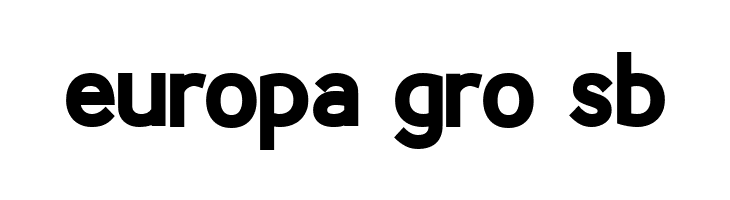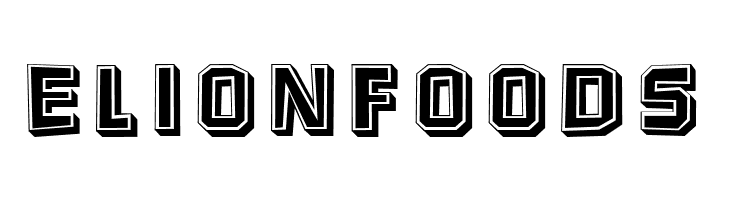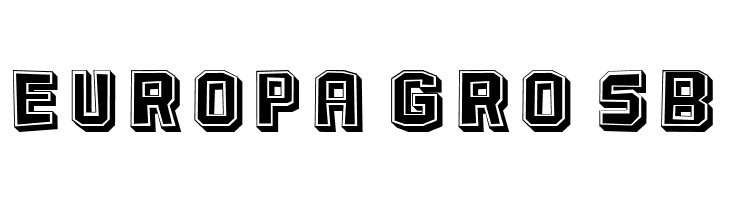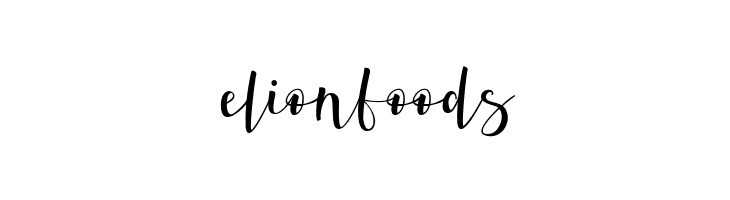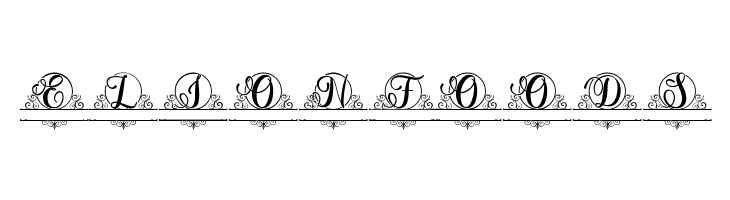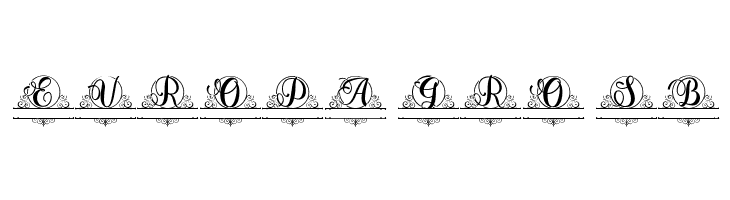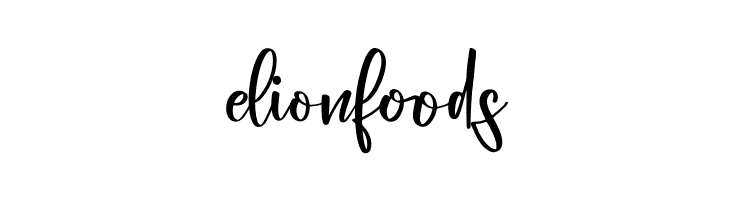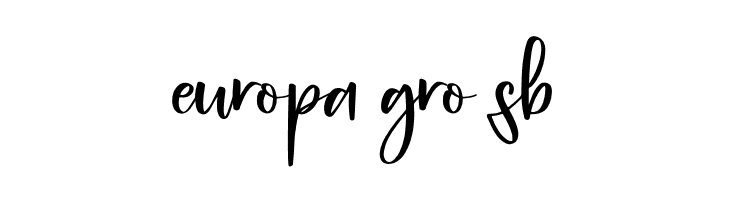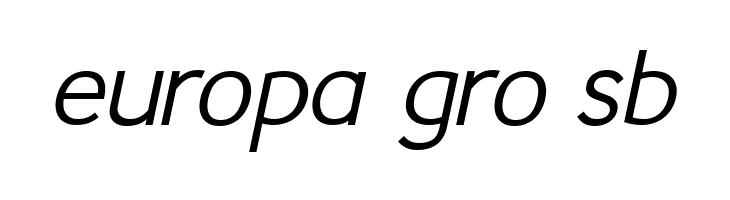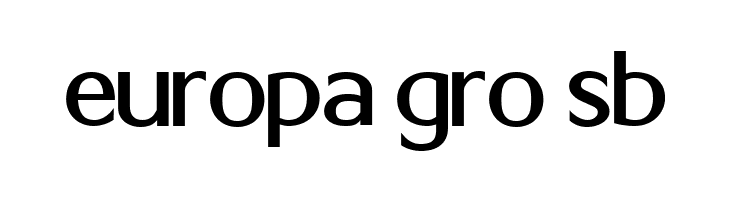
A modern italic font with smooth curves and a sleek, streamlined appearance.
An ornate and elegant font with intricate flourishes, ideal for monograms.
A bold, italic font with a zigzag pattern, offering a dynamic and modern look.
A bold, zigzag-patterned font with a dynamic and modern style.
A bold, three-dimensional font with geometric, angular characters.
A bold, geometric sans-serif font with clean lines and uniform strokes.
A modern, geometric sans-serif font with a clean and professional look.
A bold, modern sans-serif font with clean lines and geometric influence.
A playful and elegant script font with a handwritten feel.